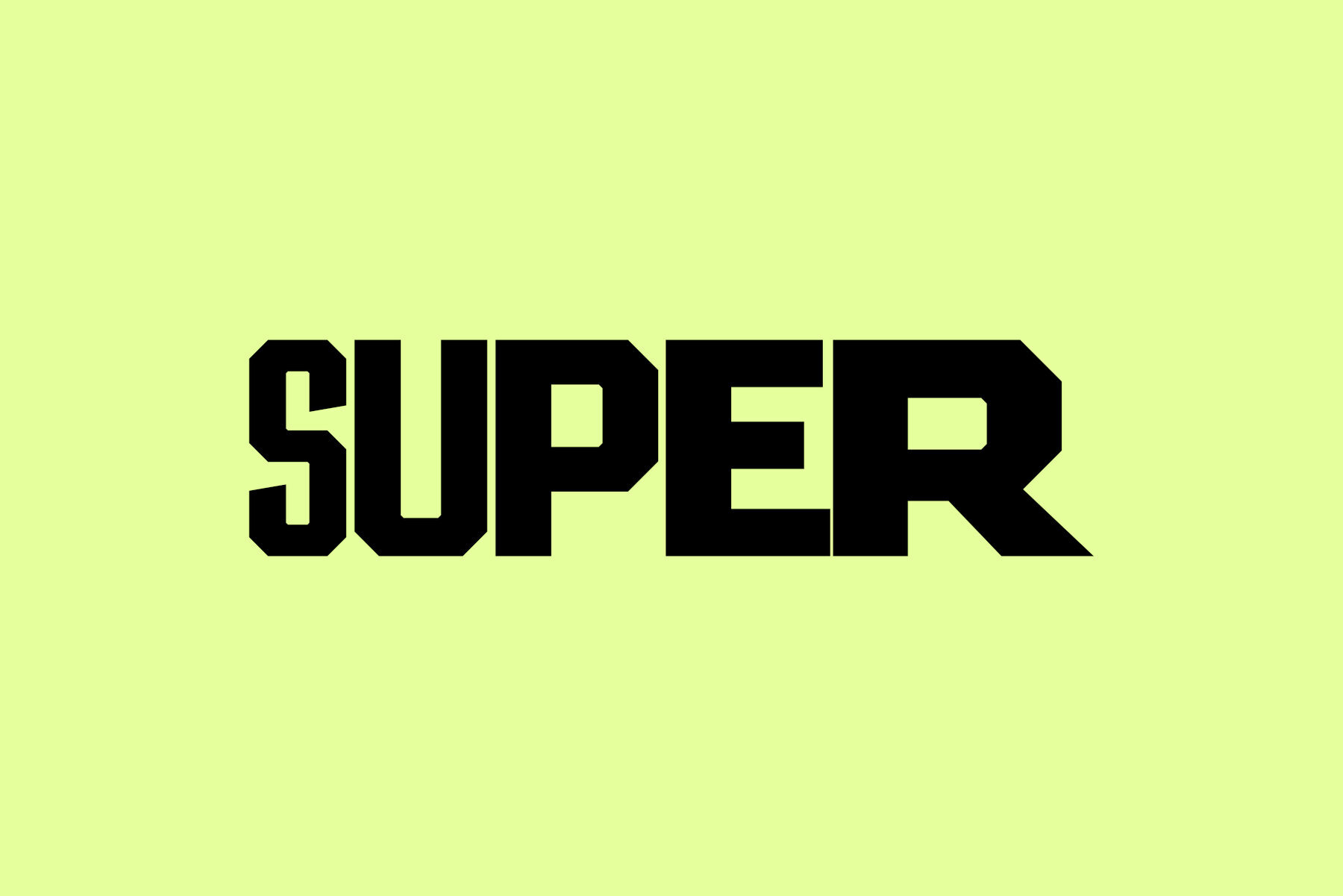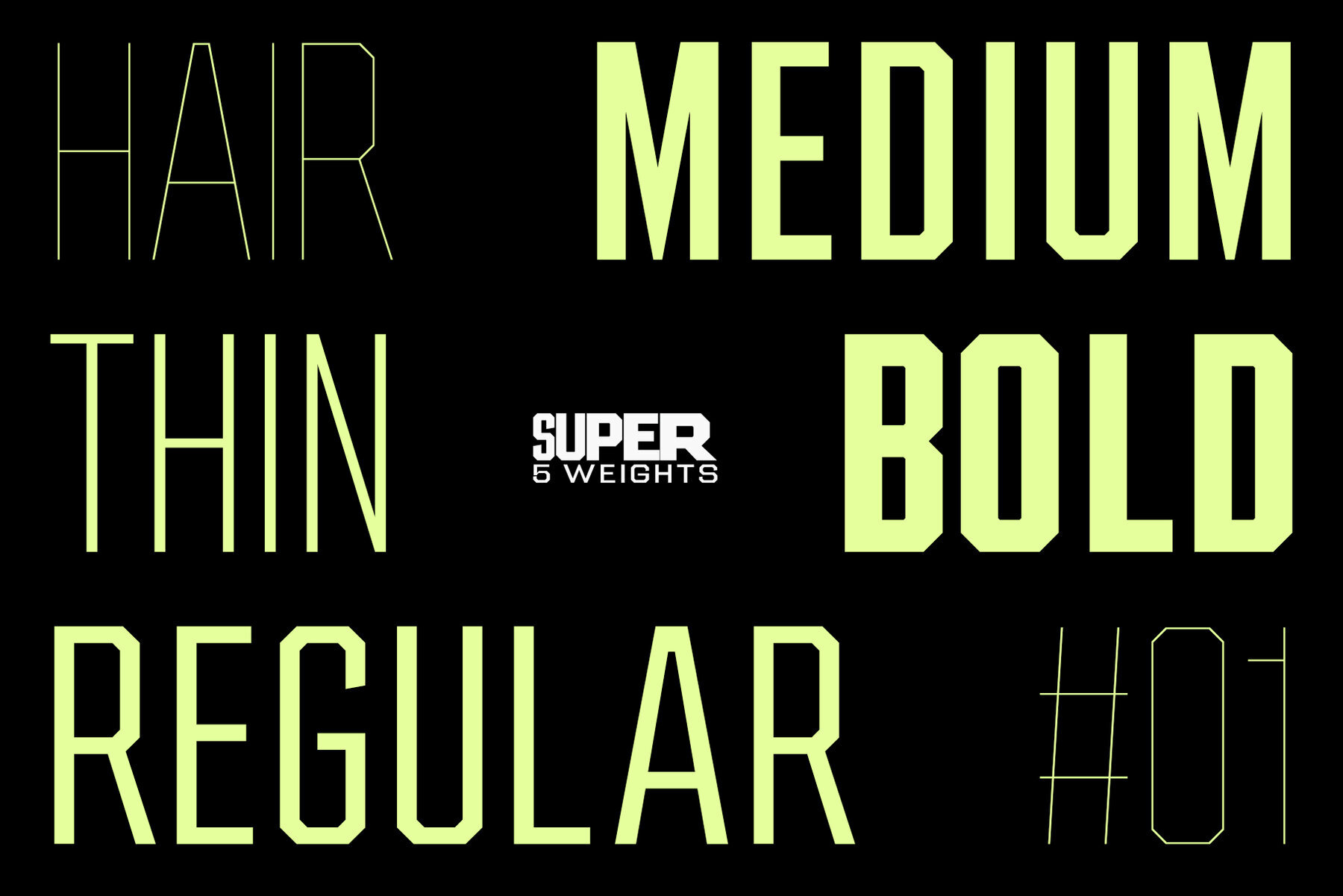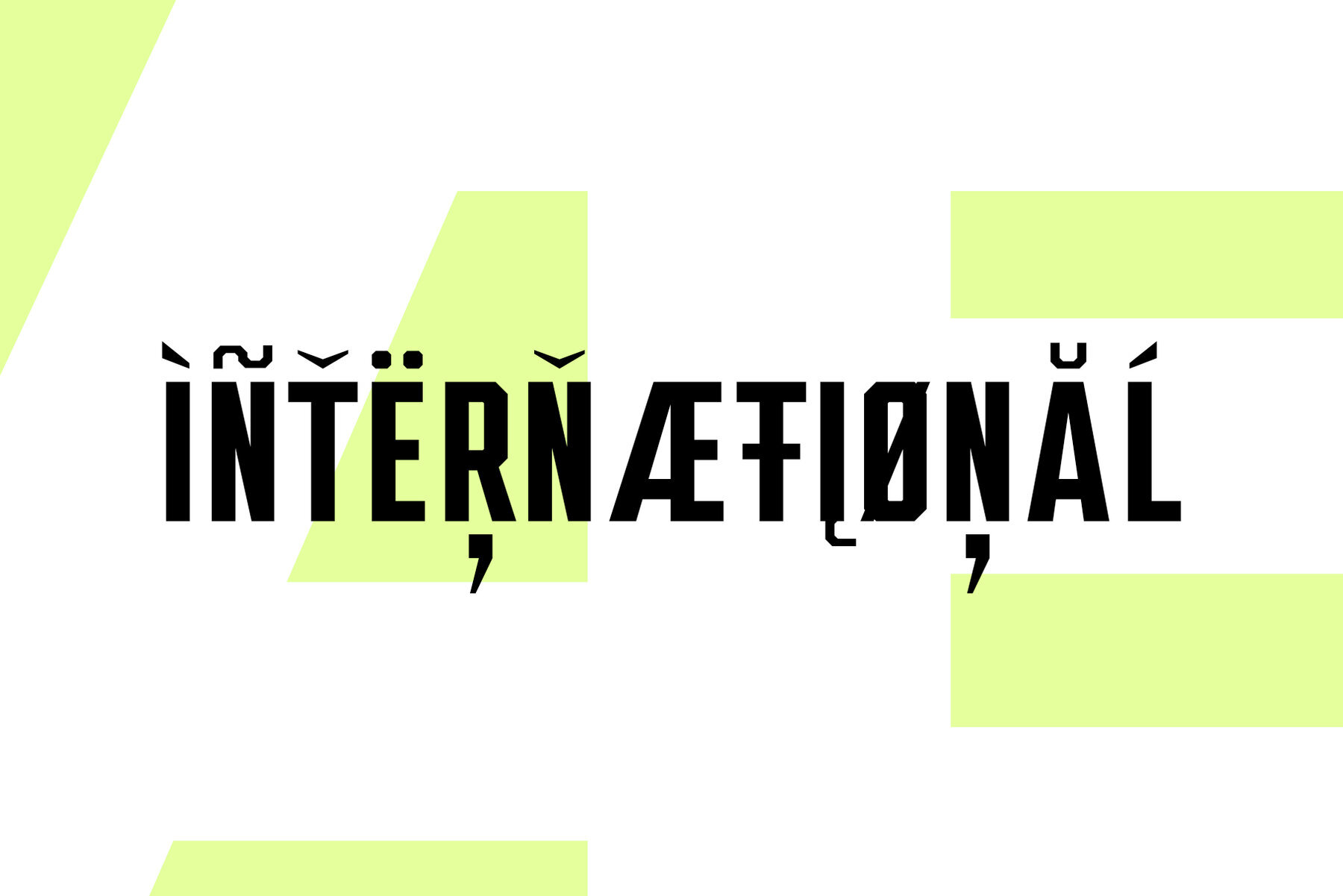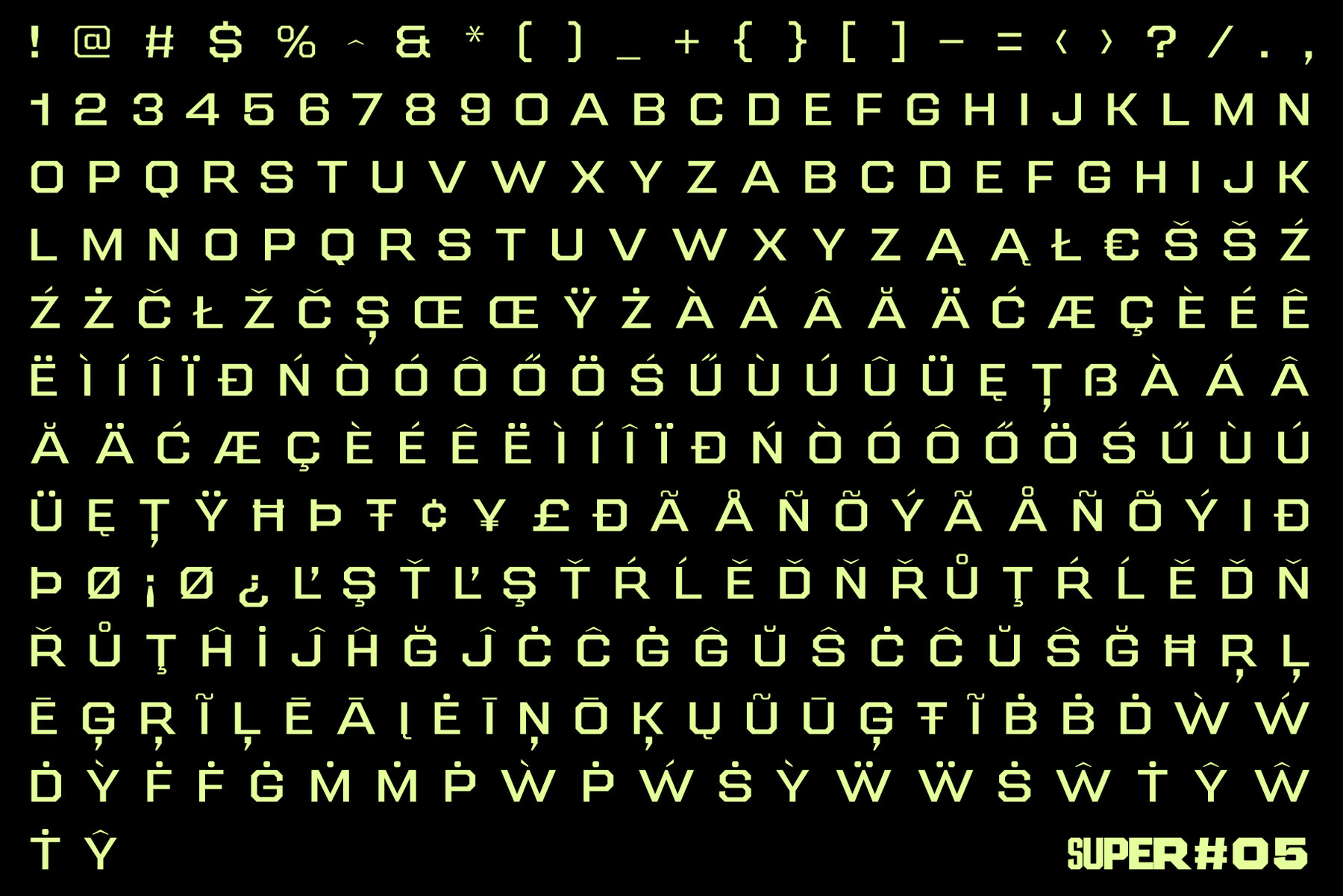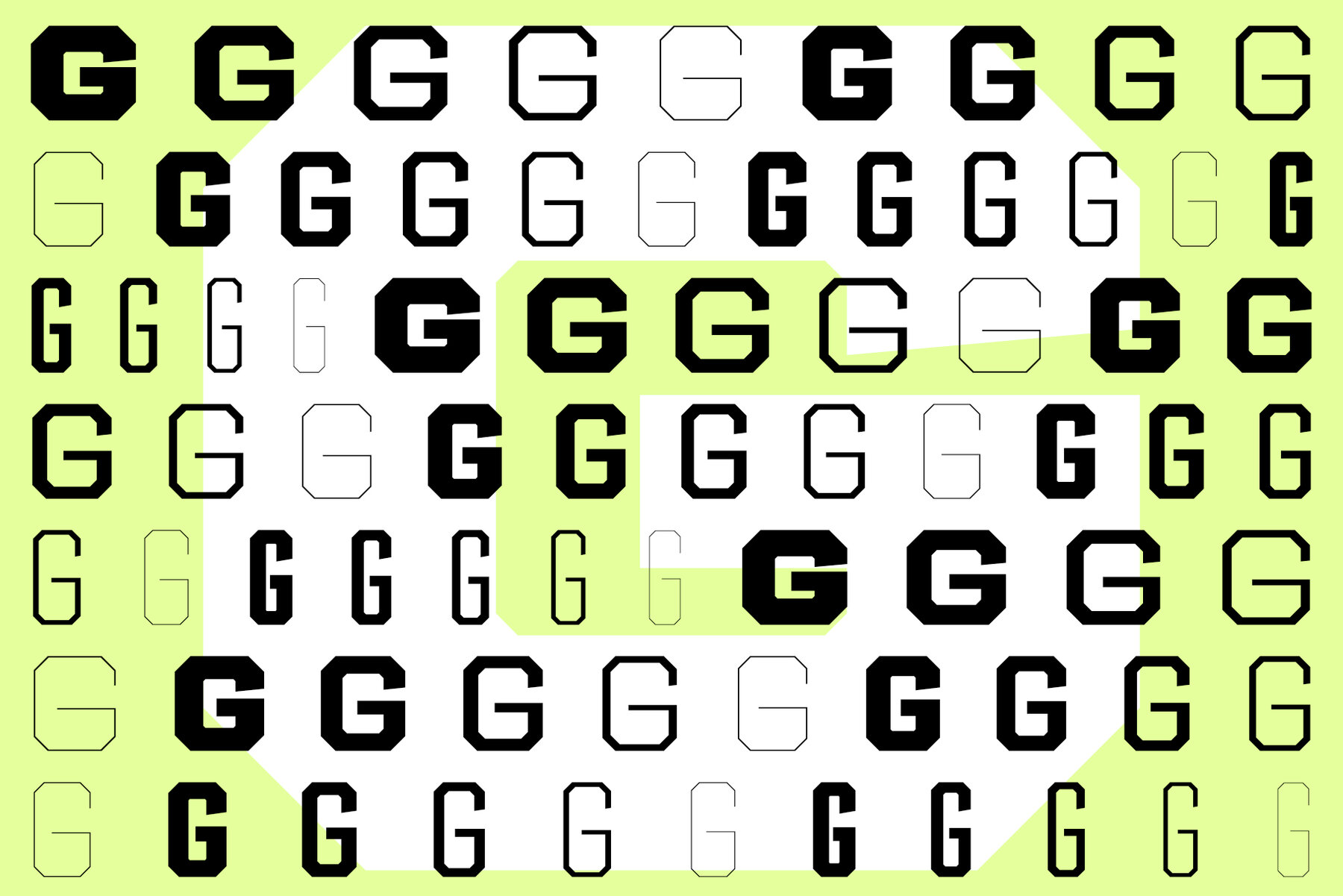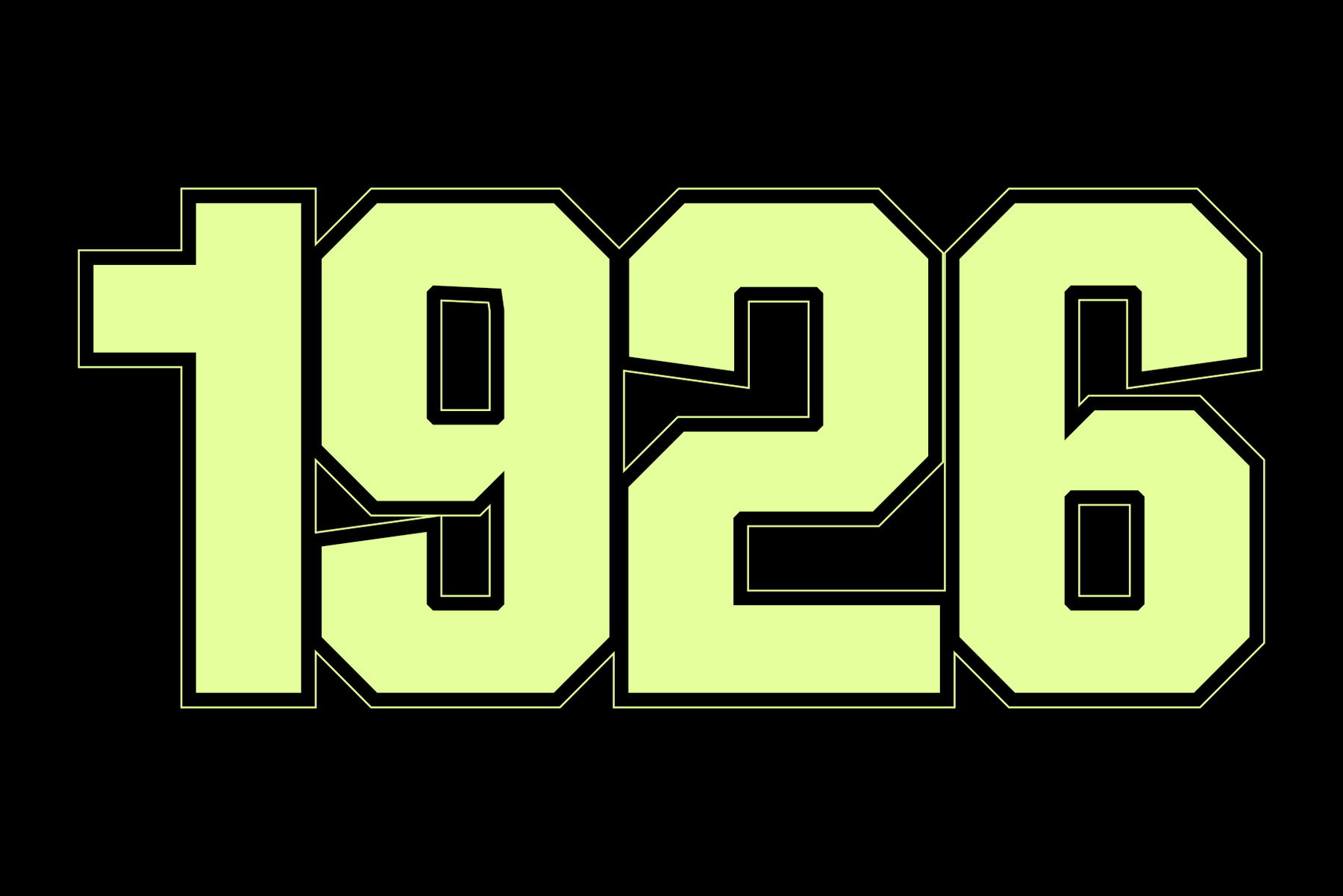
SF Super Athletic Font
SF Super is a powerful and versatile sans serif font family built for bold logos, strong branding, and standout design. With 50 styles to choose from, it’s made to flex across everything—from modern sportswear branding to cutting-edge tech projects. Clean and geometric, with a punch of retro athletic energy, SF Super is your go-to for high-performance visual identity. This font family blends modern innovation with vintage grit, combining sharp, technical lines with subtle grunge and stamp-style vibes. Whether you're designing for fashion, engineering, or a futuristic logo tech startup, SF Super delivers a bold, luxurious, and confidently elegant look. Perfect for creative brands who want to stand out, SF Super gives you the tools to build a strong, cohesive brand voice—with a modern-meets-retro style that works in both digital and print. It's clean. It's tough. It's SF Super.